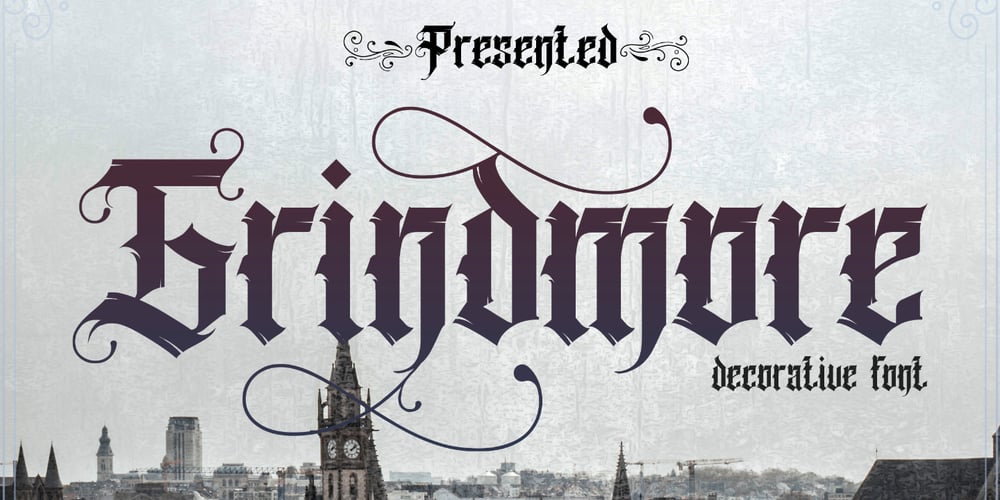
Grindmore Font Family was designed by Studio LetterStock and published by LetterStock. Grindmore contains 1 styles and family package options. **Grindmore Font**This pair was inspired by the vintage poster design that i saw on some coffee shop, It was crafted by hand specially to add natural handmade feeling in its brand identity than i make it clean with pentool.**Opentype features**Grindmore font has 222 character set included Cricket Font is very good looking in logo, labels, t-shirt prints, product packaging, invitations, advertising and others.* Multilingual support (Western European characters).This fonts works with folowing languages: English, Danish, Dutch, Estonian, Faroese, Filipino, Finnish, French, German, Hungarian, Icelandic, Irish, Italian, Norwegian, Polish, Portuguese, Spanish, Swedish.Thank you for using this font.LS